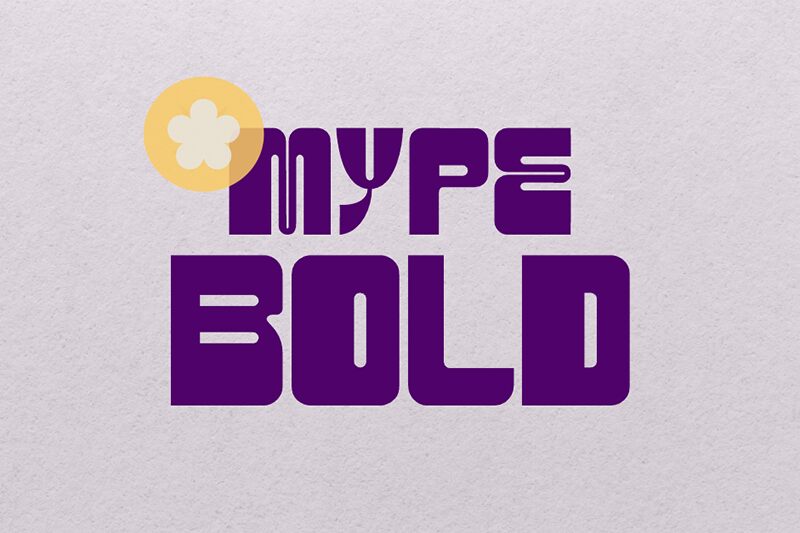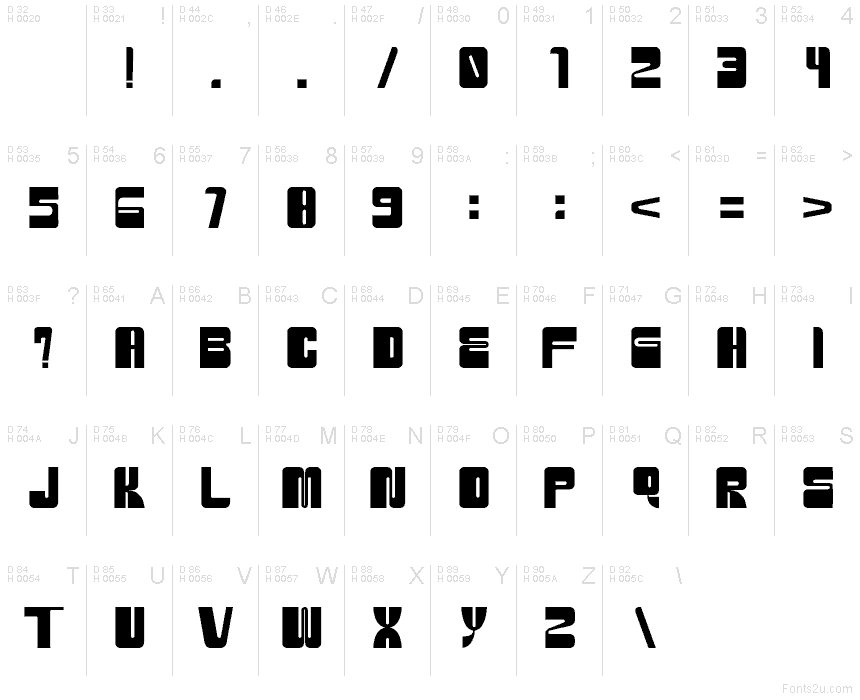
Bold Mype Bold font by Mype Room is a free groovy display typeface that fuses chunky, blackletter‑like weight with slick, contemporary curves. Its tall, almost compressed letters, smooth vertical cuts, and carved‑out counters feel like Javanese brushstrokes translated into bold street graphics. The result is a thick, inky texture that reads loud and rhythmic, even in just a few characters.
Using Bold Mype Bold, short words hit like a logotype: it shines on posters, music or festival flyers, streetwear branding, packaging, social media graphics, and bold editorial headlines. This free font loves big sizes where its sculpted shapes can breathe; pair it with a simple geometric sans or a lighter style from the Bold Mype family to handle body copy and secondary text.